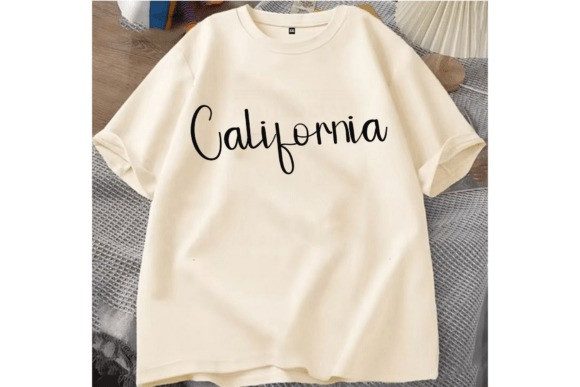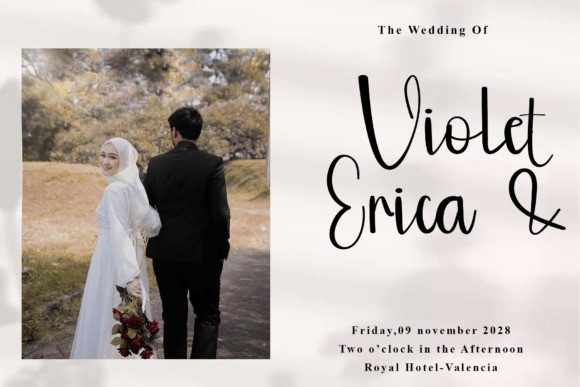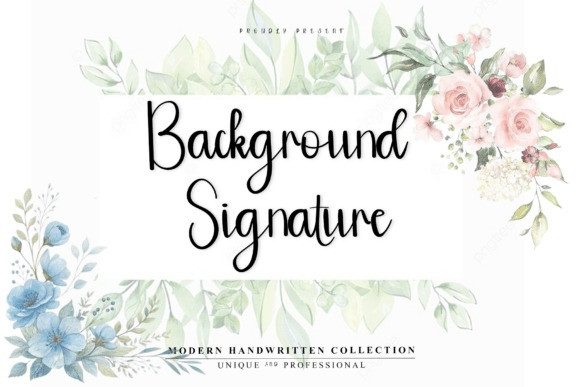
Background Signature Script Font
Background Signature Script Font ensures a seamless reading experience.The strokes are carefully crafted, featuring smooth curves and refined terminals, making it ideal for signature logos, wedding invitations, branding, and luxury packaging.
Its slightly irregular baseline adds to its authentic handwritten feel, while the consistent rhythm between characters maintains a polished and professional look. Whether used for quotes, headers, or social media graphics, Background Signature delivers charm and clarity.